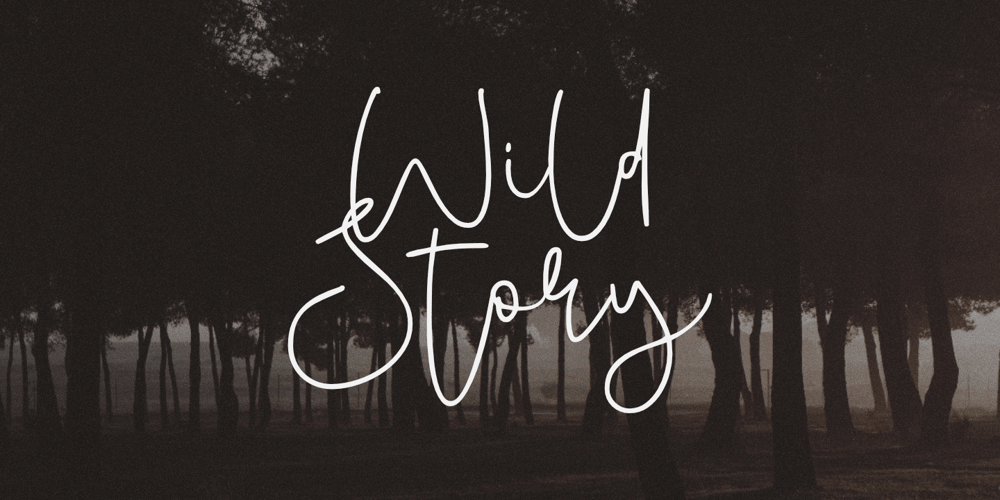
Wild Story Font Family was designed by Nurul Hidayani and published by Olivetype. Wild Story contains 1 styles and family package options. Wild Story is a stylish signature font with a natural flowing style. This font is a good choice for branding, sophisticated designs and so much more.This font supports Multi-Languages, including Afrikaans Albanian Catalan Danish Dutch English Estonian Finnish French German Italian Norwegian Portuguese Spanish Swedish Zulu.Features : Basic Latin A-Z & a-z, Numbers, symbols, and punctuations Ligatures Accented Characters : ÀÁÂÃÄÅÆÇÈÉÊËÌÍÎÏÑÒÓÔÕÖØŒŠÙÚÛÜŸÝŽàáâãäåæçèéêëìíîïñòóôõöøœšùúûüýÿžß Thank you